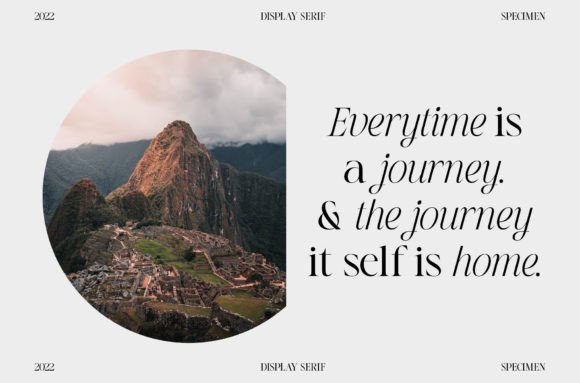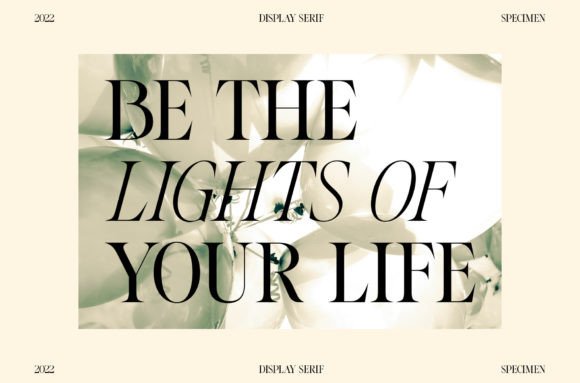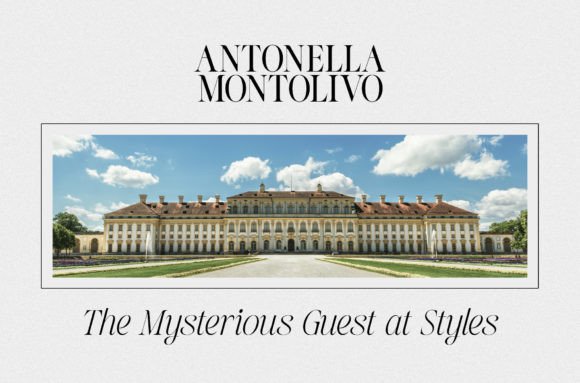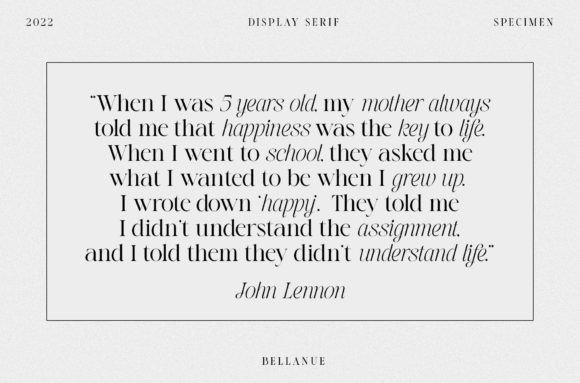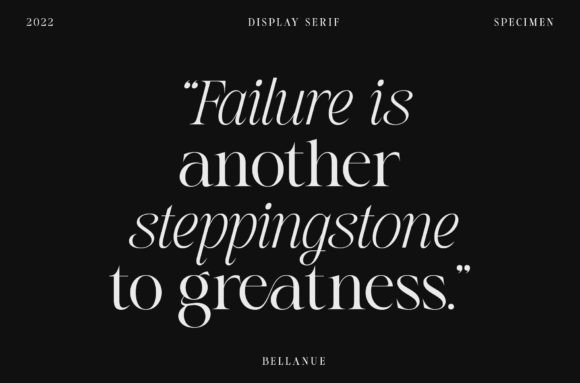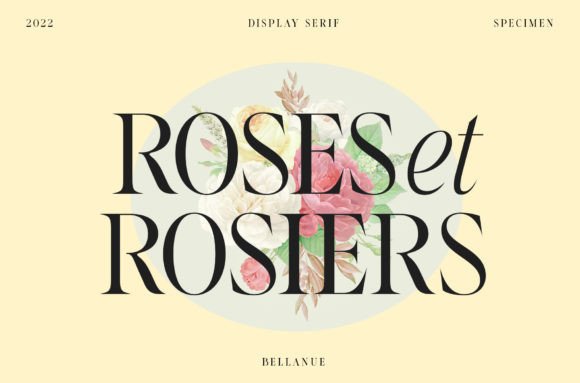
A Touch of Elegance: Unlocking the Potential of Bellanue Font
Have you ever found yourself scrolling through a beautifully designed website or magazine, and suddenly, you’re inspired to create something stunning? That’s exactly what happened to me the other day. As I was browsing through a luxury fashion blog, I fell in love with the elegant typography that perfectly complemented the stylish content. Little did I know, I had just discovered the secret to elevating my designs – the Bellanue Font.
This sophisticated serif font is designed to add a touch of luxury and femininity to your projects, making it the perfect choice for modern, chic designs. Whether you’re working on a high-end branding project or a fashion-inspired editorial piece, the Bellanue Font is sure to impress. Its fashionable touch and elegant feel make it a valuable asset for designers looking to create visually stunning and professional-looking designs.
Bellanue Font Key Features
- Font Family: Bellanue
- Unique Characteristics: Elegant and sophisticated design, suitable for luxury and high-end branding, includes a range of OpenType features for advanced typography
- Font Weight: Supports 6 weights, from Light to ExtraBold
Bellanue Font Review
I’ve had the chance to work with the Bellanue font, and overall, I’d say it’s a solid addition to any designer’s toolkit. ✨ Here are some things that really stood out to me:
- Unique personality: The Bellanue font has a distinct, quirky feel that’s perfect for adding some visual interest to your designs.
- High-quality rendering: The font’s smooth lines and well-defined shapes make it a pleasure to work with.
- Strong versatility: Whether you’re designing for print, web, or digital products, Bellanue holds its own.
That being said, I did encounter a few limitations: ⚠️
- Limited character set: I found that the font’s character set was a bit lacking, especially when it came to special characters and accents.
- Not ideal for large blocks of text: While the font looks great in small doses, it can become overwhelming when used extensively.
Overall, I’d give the Bellanue font 4 out of 5 stars. It’s a great choice for designers looking to add some personality to their projects, but it may not be the best fit for every situation.
Tips for Getting the Most Out of Bellanue Font
Use Bellanue Font for:
- Crafting elegant and sophisticated headings.
- Adding a touch of luxury to your branding materials.
- Creating a cohesive and professional look across your marketing materials.
Bellanue Font is ideal for:
- Business cards and letterheads.
- Brochures and flyers.
- Website headers and footers.
Alternatives to Bellanue Font for Designers
Great Vibes is a modern, elegant script font that works well for headings, titles, and quotes. It’s ideal for creative projects, such as posters, flyers, and social media graphics. Great Vibes has a similar feel to Bellanue Font, but with a more relaxed and casual tone.
Comparison: While Bellanue Font has a more refined and sophisticated look, Great Vibes has a more playful and laid-back feel.
Carolyna Pro is a high-end, elegant script font that’s perfect for luxury brands, weddings, and high-end fashion projects. It’s ideal for creating a sophisticated and refined look, making it a great alternative to Bellanue Font for designers who want to create a more upscale feel.
Comparison: Carolyna Pro has a more polished and refined look compared to Bellanue Font, making it ideal for high-end projects.
Alex Brush is a beautiful, elegant script font that’s perfect for creating a romantic and whimsical feel. It’s ideal for projects such as invitations, wedding stationery, and children’s books. Alex Brush has a similar feel to Bellanue Font, but with a more delicate and feminine touch.
Comparison: While Bellanue Font has a more modern and sleek look, Alex Brush has a more vintage and romantic feel.